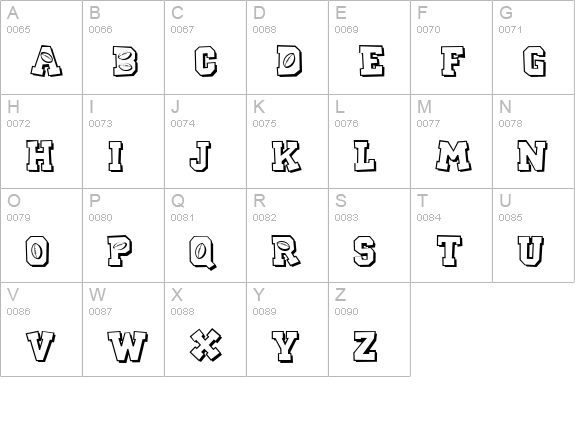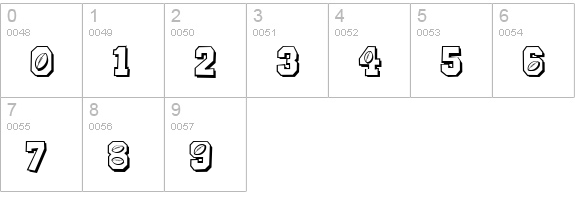
CK Sports Football Font Details
Introducing the CK Sports Football font, a dynamic and energetic typeface perfect for all your sports-related design projects. Designed with sleek lines and bold lettering, this font captures the spirit of competitive football games and exudes a sense of passion and excitement. Whether you're creating posters, flyers, or social media graphics for your favorite team or sporting event, the CK Sports Football font is sure to make a bold statement. The best part? This eye-catching font is completely free to download at FontsMarket.com, making it easily accessible for all designers and enthusiasts alike. With its modern and versatile design, the CK Sports Football font is a must-have addition to your font collection. So why wait? Download it now and elevate your sports-themed designs to the next level!